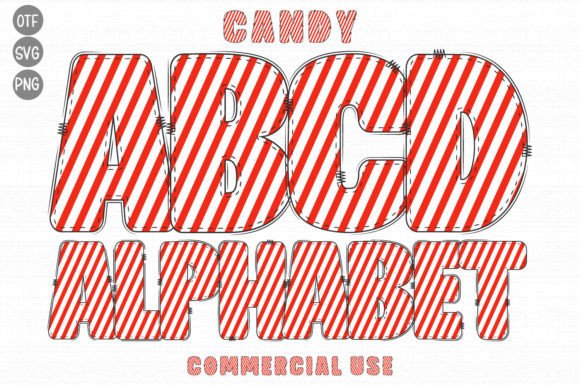
The Sweetest Addition to Your Font Library: Candy Font
I’ll never forget the time I was working on a children’s party invitation design, and I just couldn’t find the perfect font to match the playful theme. The project was for a friend’s kid, and I wanted it to be extra special. That’s when I stumbled upon the Candy font, and it was love at first sight! 🎉 With its adorable candy skin texture, it instantly elevated my design and made it perfect for the occasion. In this article, I’ll share my experience with the Candy font, its features, and how to make the most of it in your designs.
An Honest Review of Candy Font
What I Love About Candy Font
- ✨ The Candy font is perfect for nature-themed designs and children’s projects, but its versatility means it can be used for a wide range of creative endeavors.
- ✅ The font comes in both black and color versions, making it suitable for various design applications.
- ✅ The font’s texture and style add a unique touch to any design, making it stand out from more traditional fonts.
While the Candy font is an amazing addition to any font library, there are a few things to keep in mind:
The Designer Inspiration Behind Candy Font
The Candy font was designed with the intention of creating a playful, whimsical font that would bring a touch of fun to any design. The designer wanted to capture the essence of childhood and the magic of candy, while also making the font versatile enough to be used in various design applications.